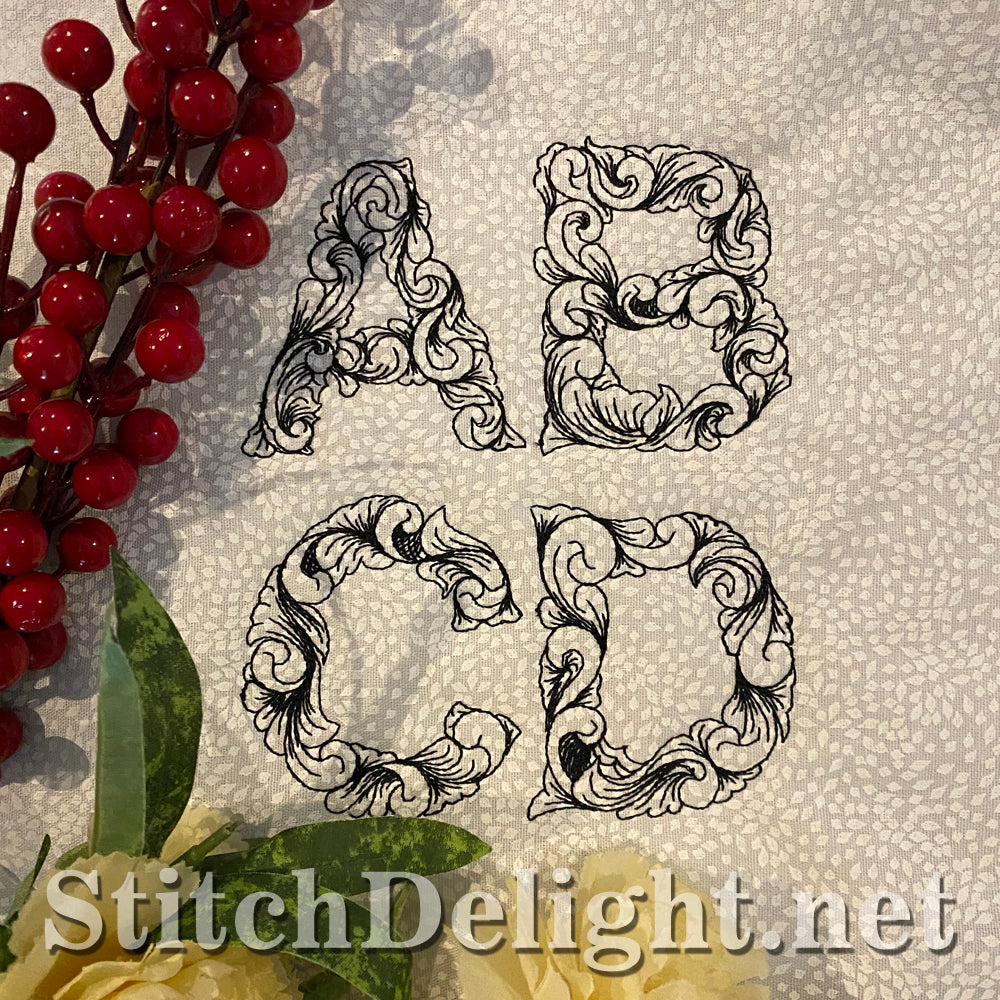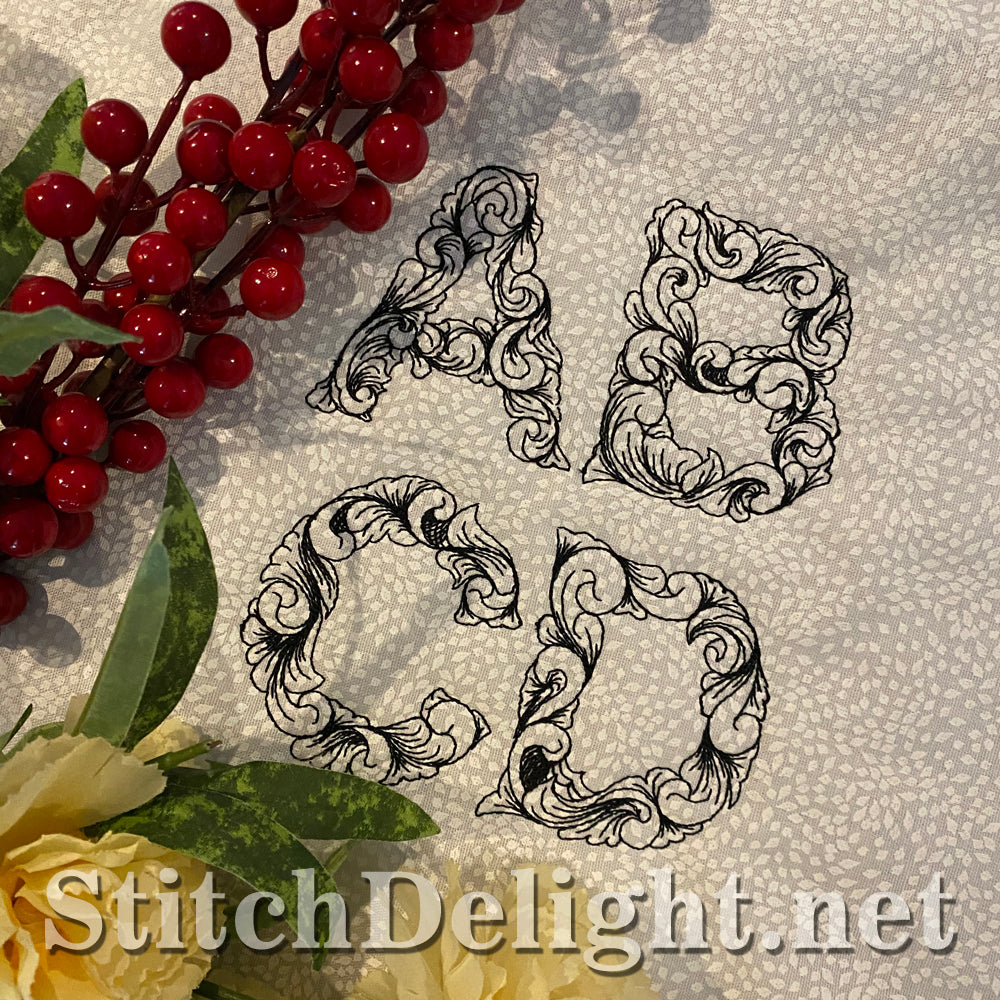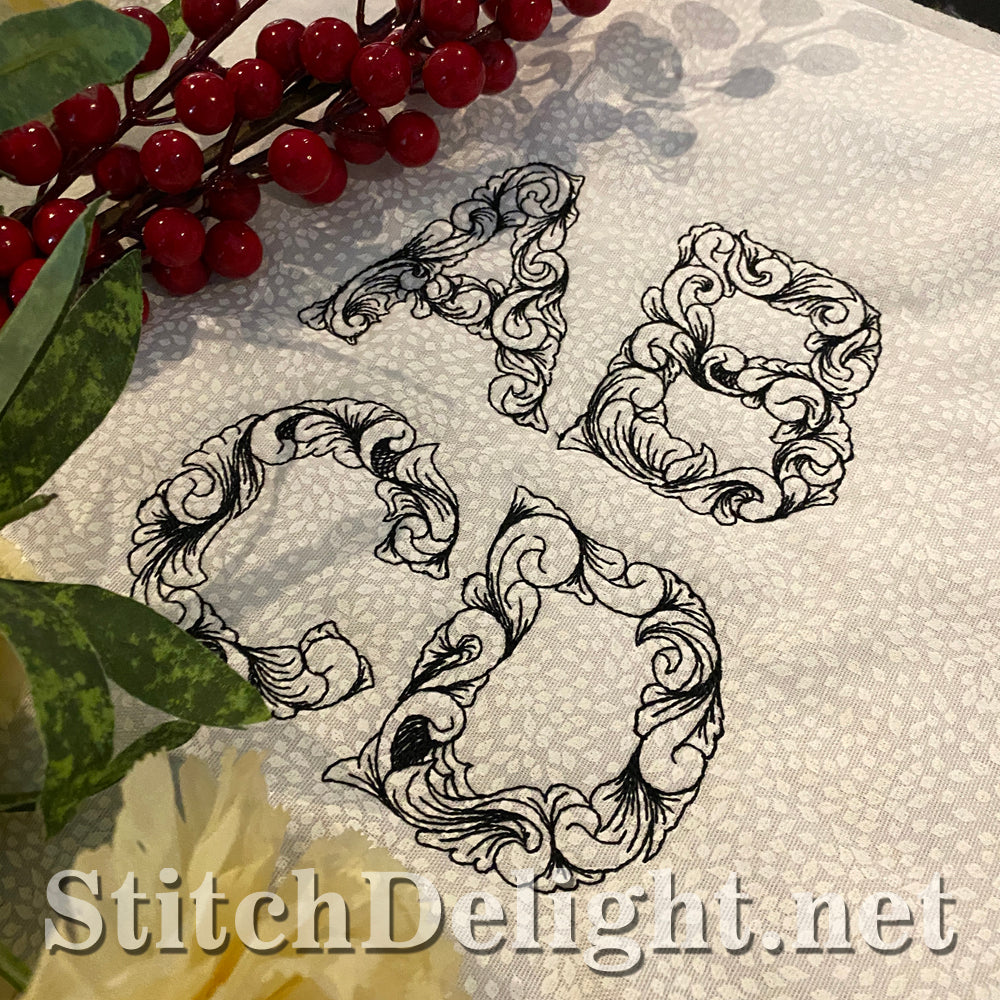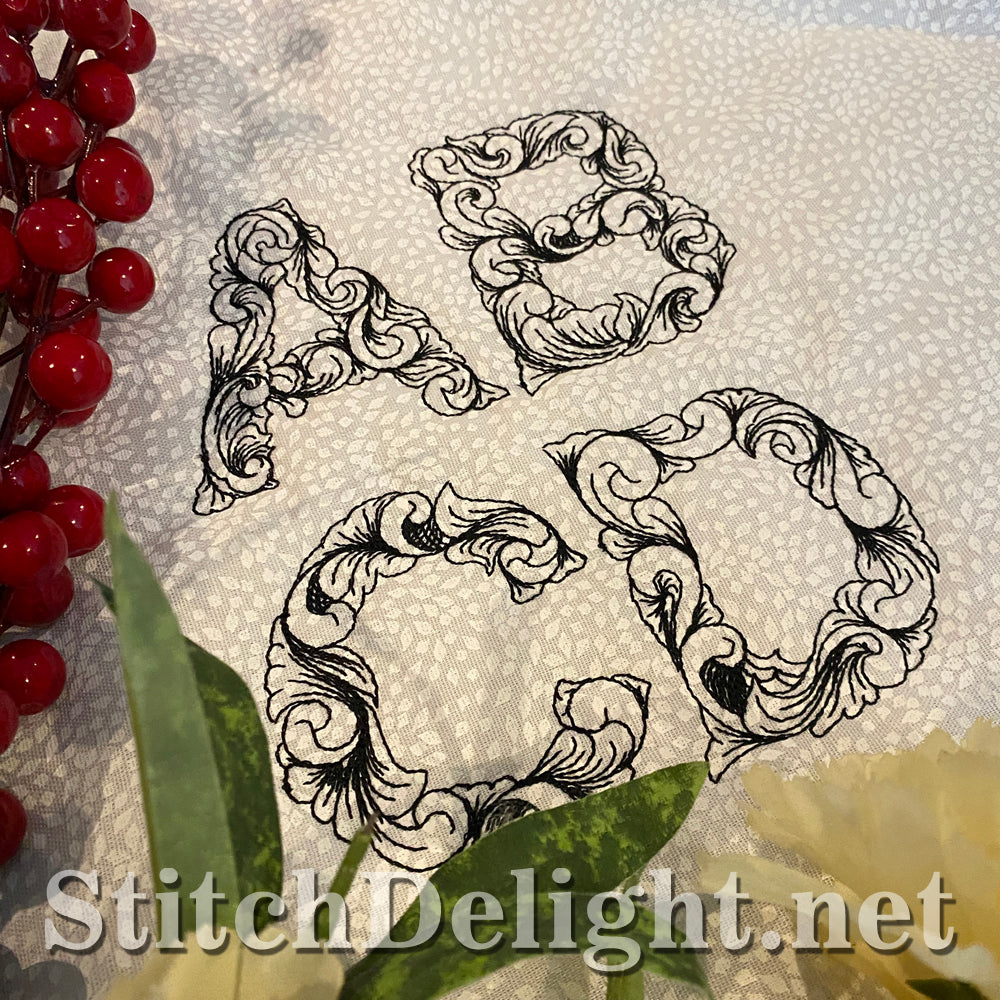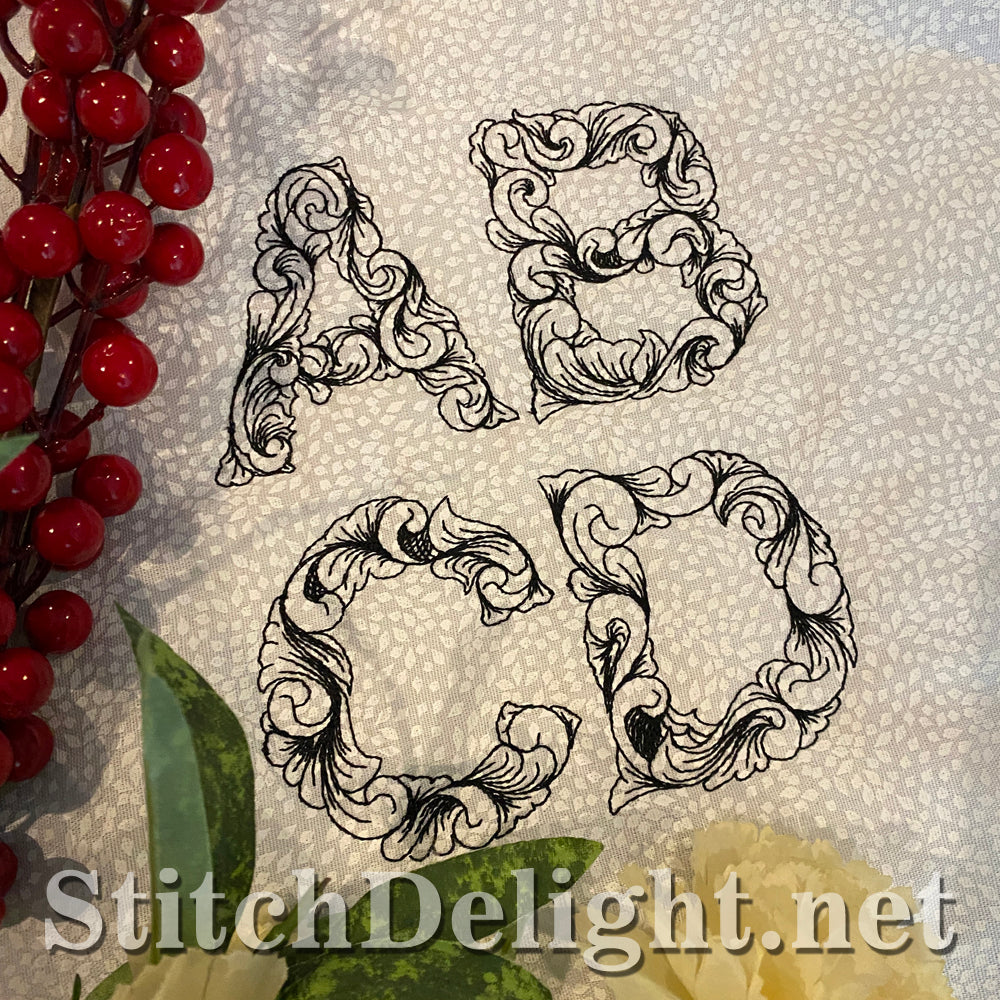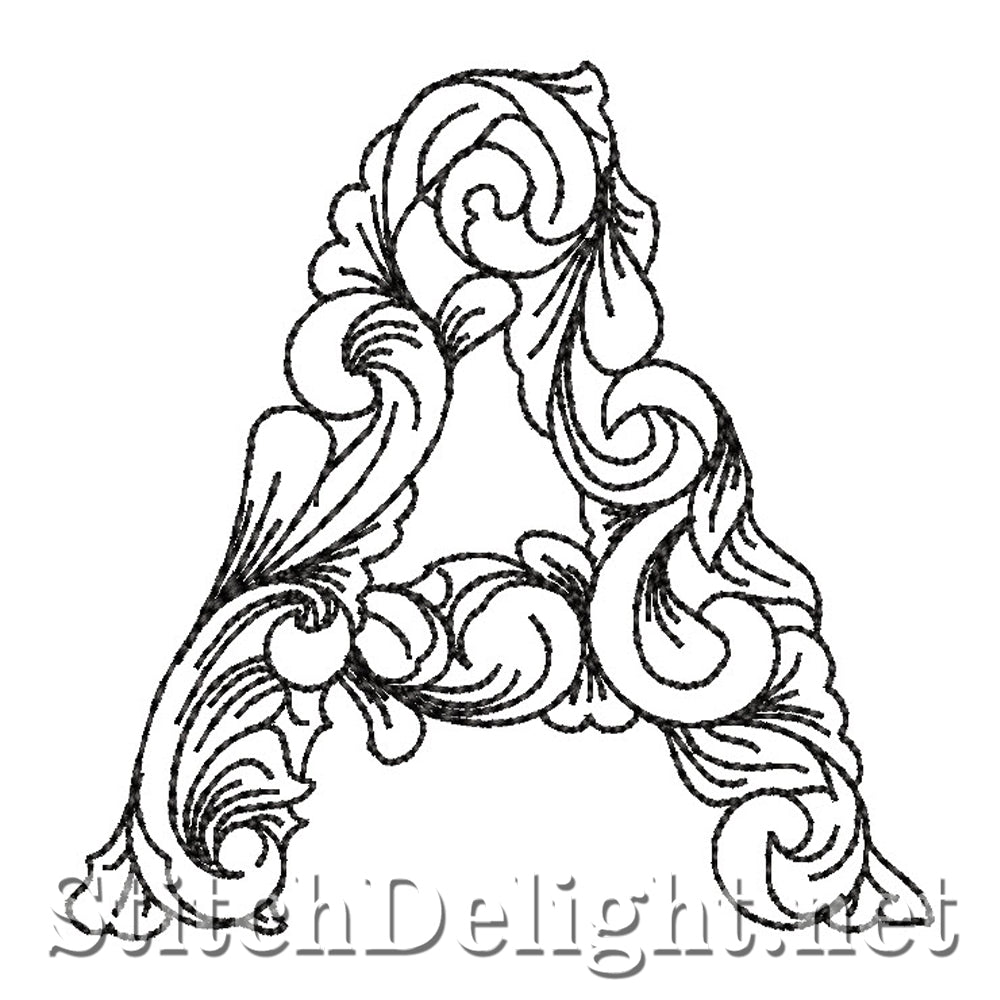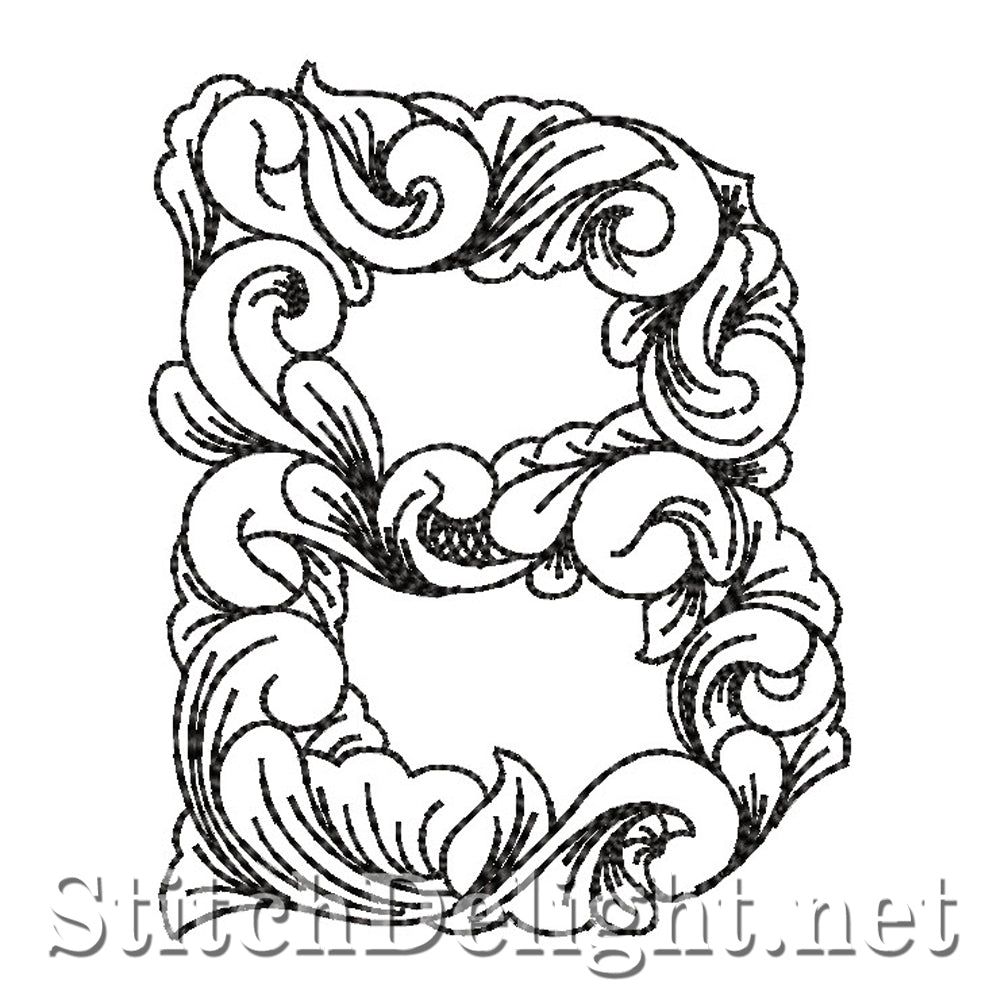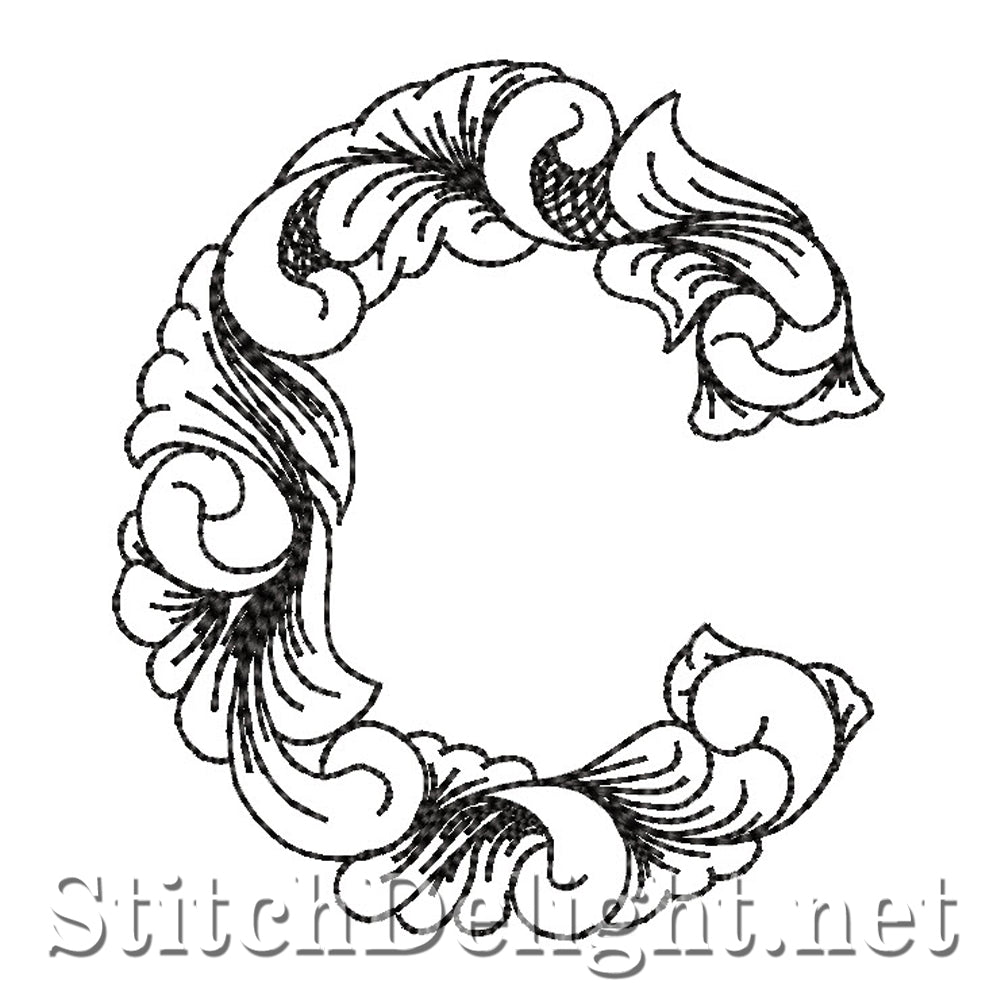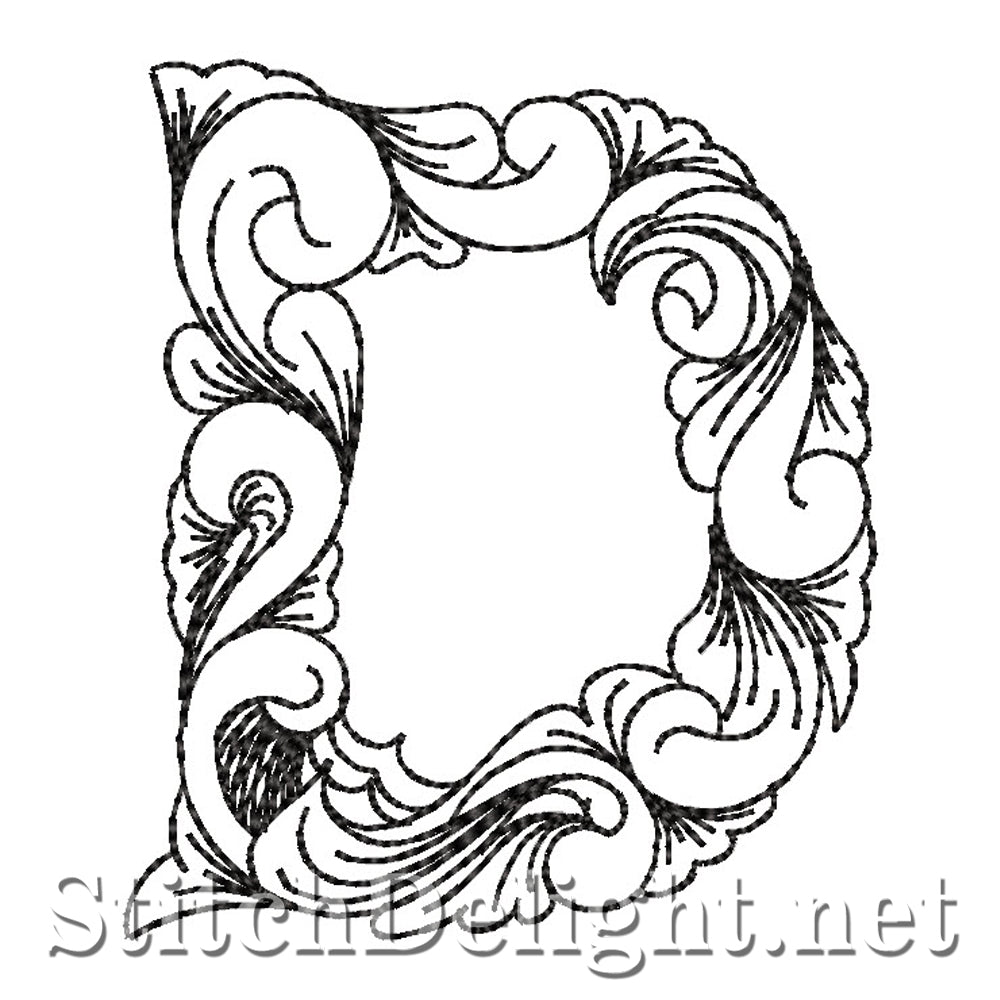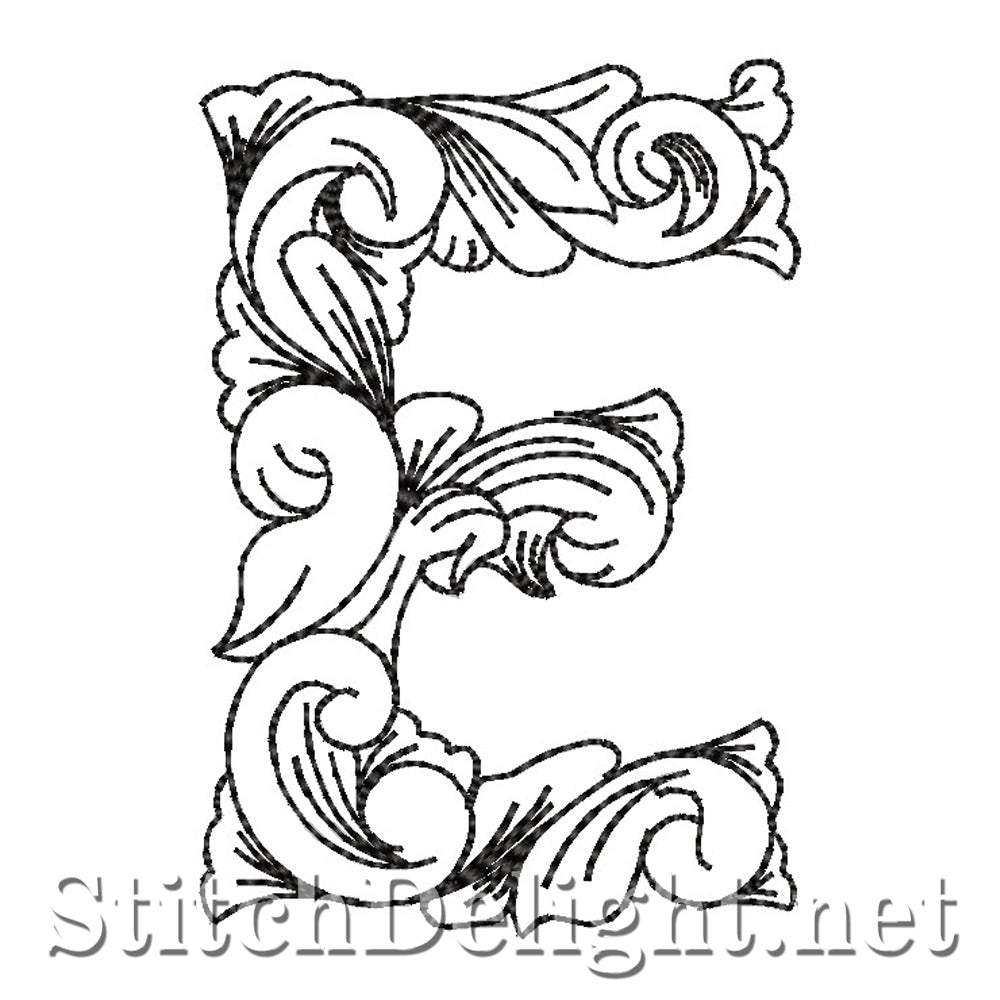
SDS3141 Freehand Collectors Font
Every curve and twirl is done completely freehand and perfectly sized for your 4x4" hoop. With an average height of 3 inches it's the perfect size for your very own custom wall hanging quotes and sayings or on pillows.